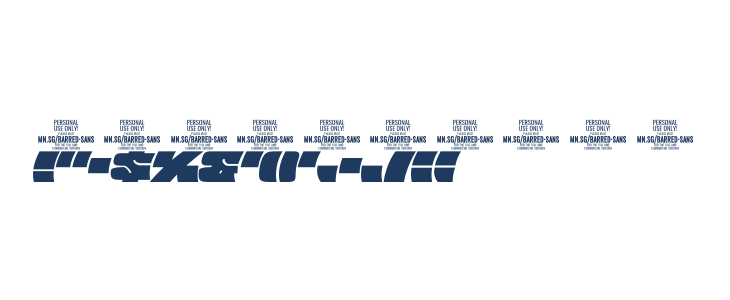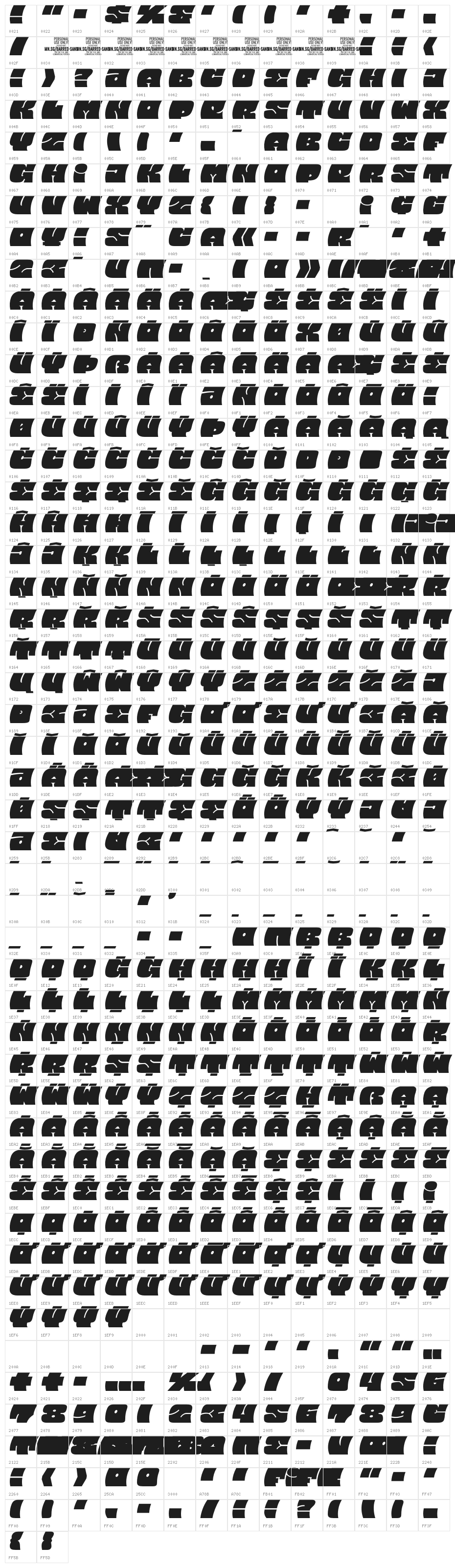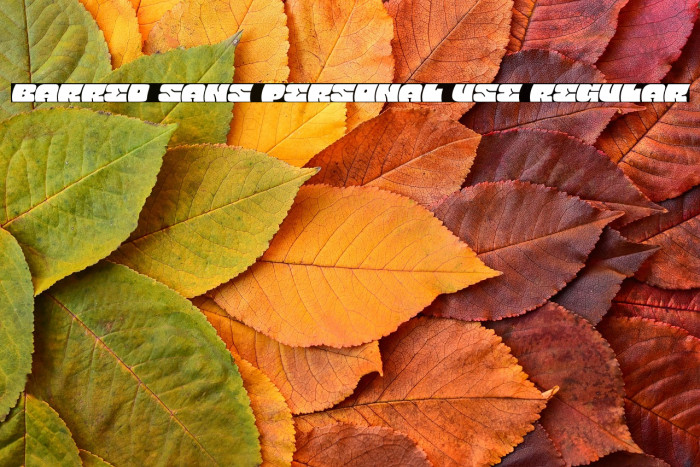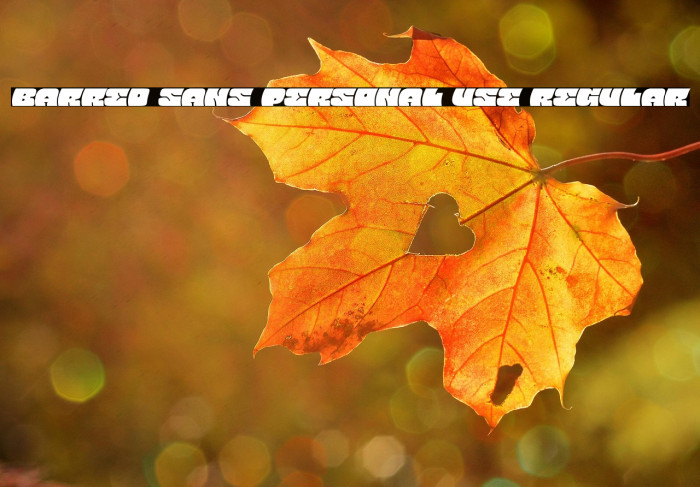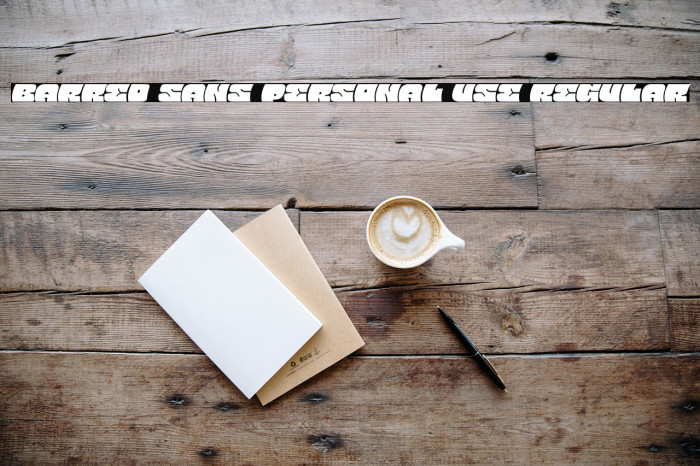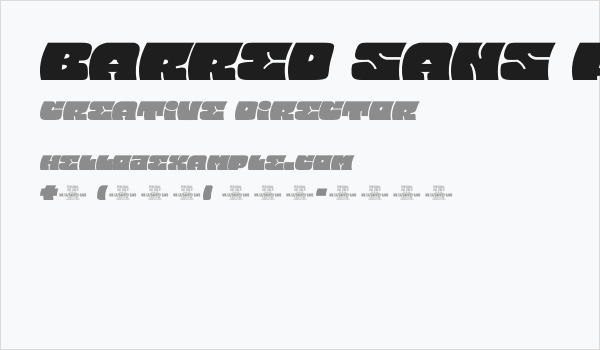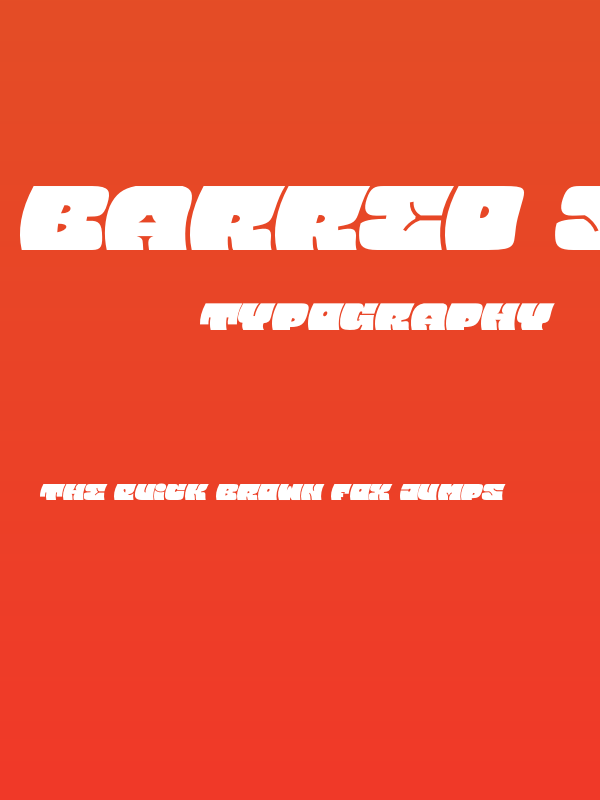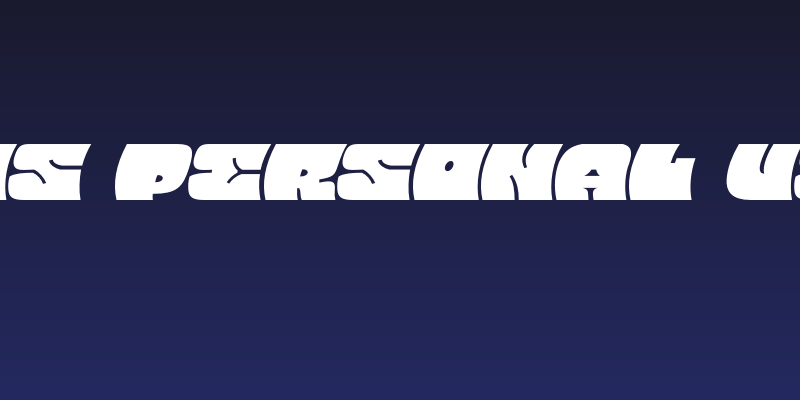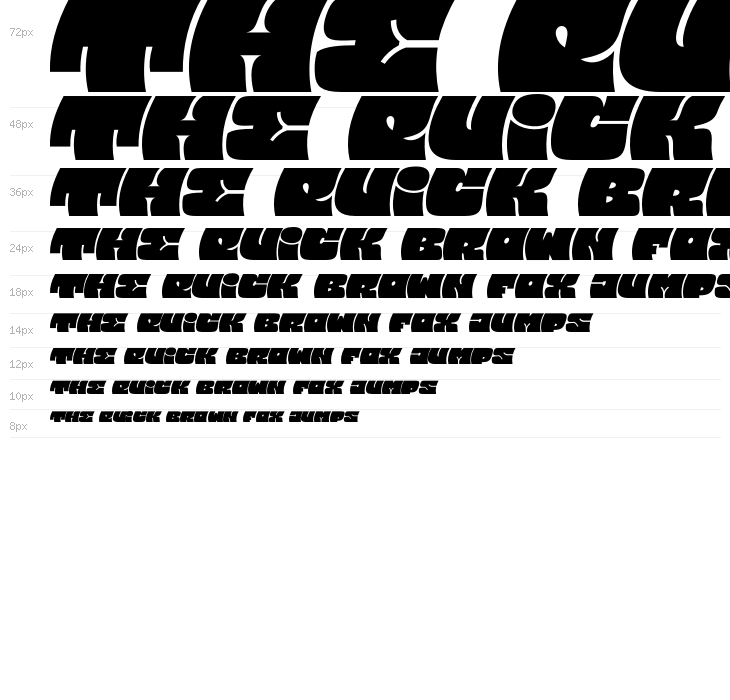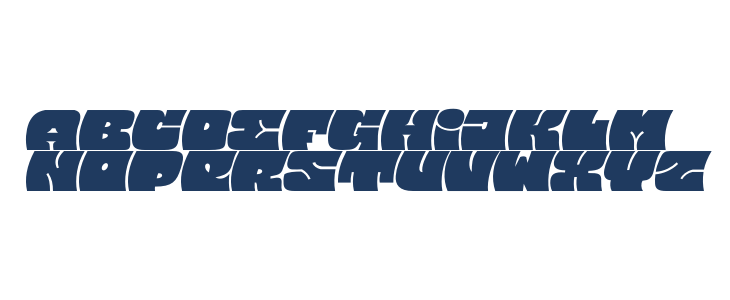
Barred Sans PERSONAL USE Regular Font
Barred Sans PERSONAL USE Regular Description
This font features a bold and striking design with thick, blocky letters that have a unique, futuristic appearance. The characters are heavily stylized with a geometric influence, creating a sense of strength and modernity. The uppercase and lowercase letters maintain a consistent weight, contributing to a cohesive look. The numbers and special characters follow the same design principles, ensuring uniformity across all glyphs. This font's boldness makes it ideal for attention-grabbing headlines and impactful designs.